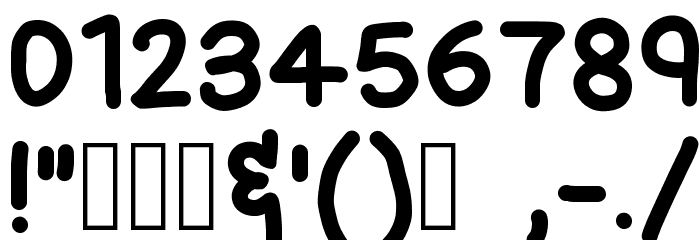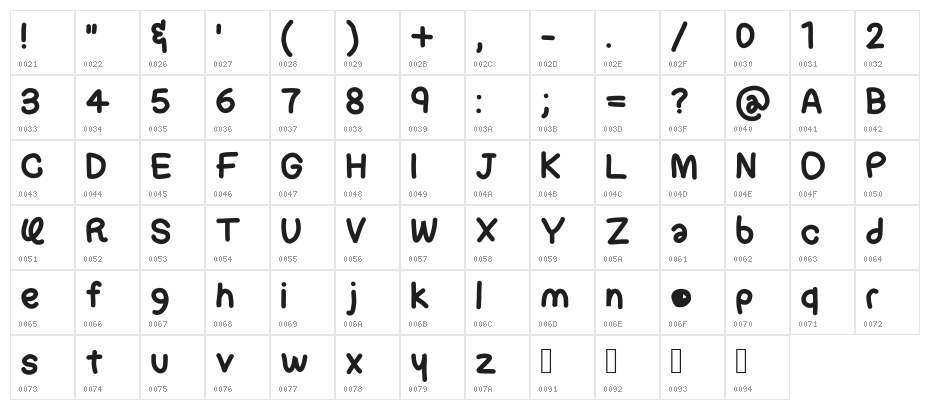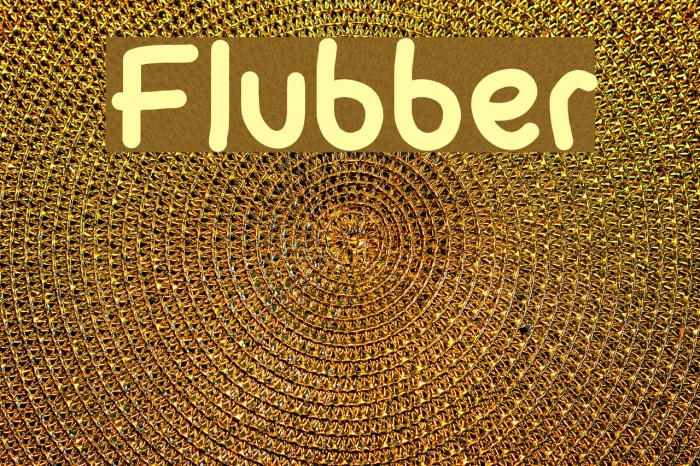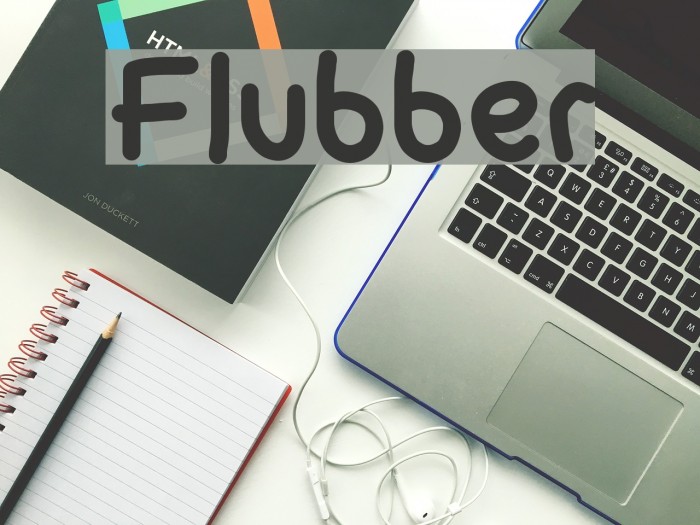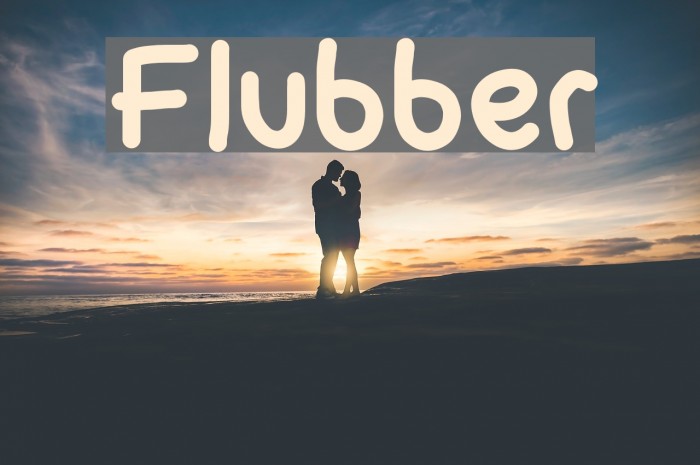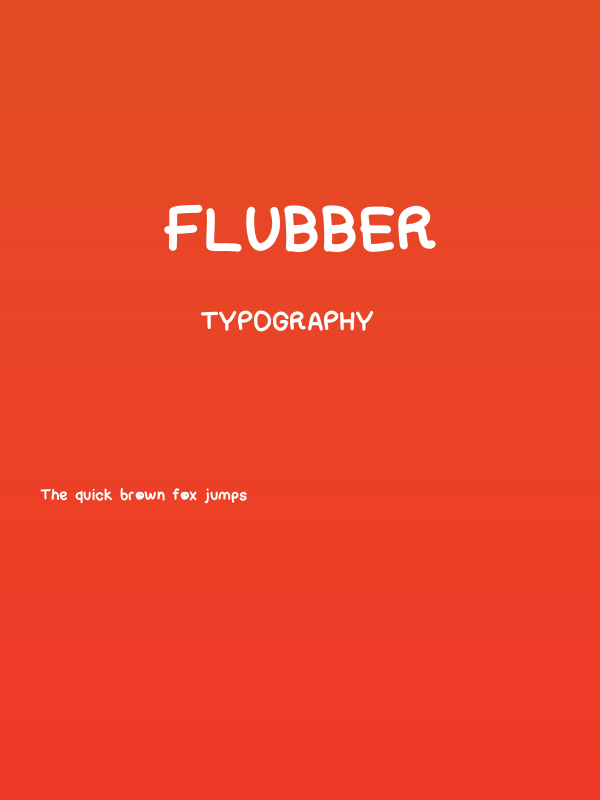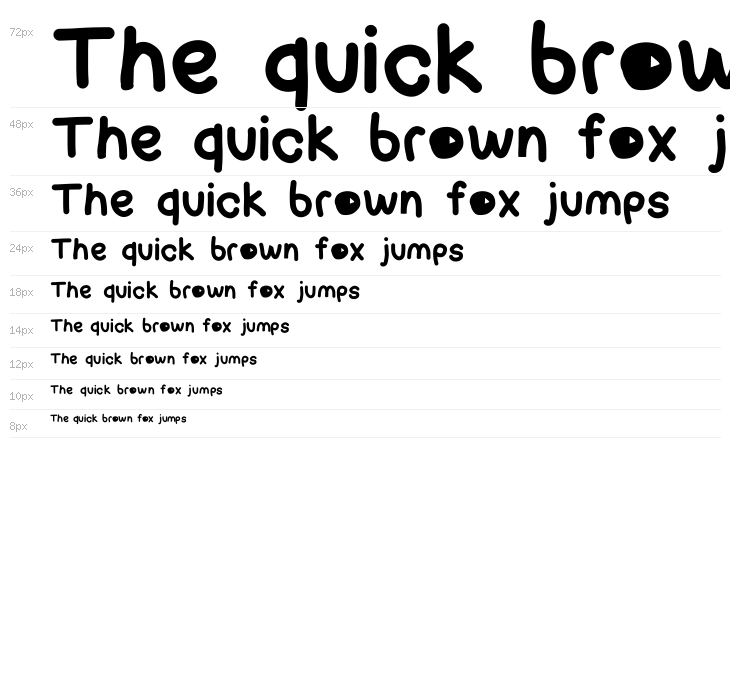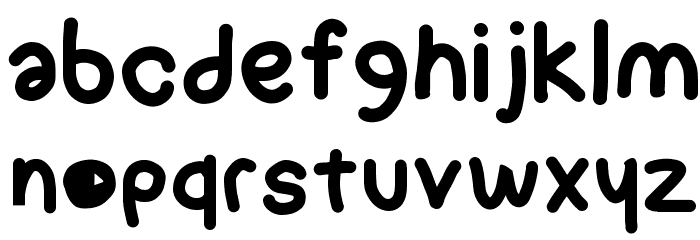
Flubber Font
Flubber Description
This playful and whimsical font features rounded, bubbly characters that convey a sense of fun and lightheartedness. The letters are bold and slightly irregular, giving them a hand-drawn appearance. The uppercase and lowercase letters maintain a consistent style, with smooth curves and a uniform thickness that adds to the font's approachable and friendly feel. The numbers and special characters follow the same design principles, ensuring a cohesive look across all elements. This font is ideal for projects that aim to capture a youthful or casual vibe.